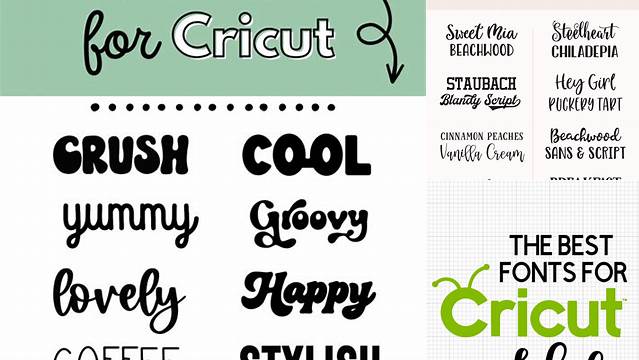
Cricut Fonts: The Ultimate Guide For Crafters
Hey crafters! Ever wondered how to make your Cricut projects truly stand out? It all starts with the right Cricut font! Choosing the perfect font can transform a simple design into a stunning masterpiece. In this guide, we're diving deep into everything you need to know about Cricut fonts, from finding them to using them effectively. Let's get started and unleash your creativity!
Understanding Cricut Fonts
Cricut fonts are specifically designed to work seamlessly with your Cricut machine, ensuring clean cuts and beautiful results. Knowing the basics helps you make informed choices and avoid common pitfalls.
What Are Cricut Fonts?
Cricut fonts are digital typefaces that you can use with your Cricut cutting machine to create various projects, such as vinyl decals, paper crafts, and iron-on designs. These fonts come in various styles, from elegant scripts to bold sans-serifs, allowing you to personalize your creations. When selecting a Cricut font, it's essential to consider factors like readability, cut complexity, and the overall aesthetic you want to achieve. For instance, intricate fonts with many fine details might look stunning on screen but can be challenging to cut and weed, especially with smaller designs. Conversely, simpler, bolder fonts are often easier to work with and provide cleaner cuts, making them ideal for beginners or projects that require precision. Understanding the nuances of different Cricut fonts will help you streamline your crafting process and achieve professional-looking results every time.
Types of Fonts Compatible with Cricut
When it comes to Cricut fonts, you've got options! You can use fonts that are already in Cricut Design Space, or you can upload your own. Cricut Design Space offers a wide variety of fonts, including single-layer fonts, multi-layer fonts, and writing fonts. Single-layer fonts are straightforward and easy to cut, making them great for general use. Multi-layer fonts add depth and dimension to your projects, allowing you to create layered designs with different colors and textures. Writing fonts are specially designed for use with Cricut pens, creating beautiful handwritten effects. But don't stop there! You can also upload fonts from other sources, giving you access to thousands more options. Sites like Dafont, FontSpace, and Creative Fabrica offer a vast selection of free and premium fonts that you can use with your Cricut machine. Just make sure the fonts you download are compatible with Cricut Design Space (usually OTF or TTF files) and that you have the necessary licenses for commercial use if you plan to sell your creations.
Using System Fonts vs. Cricut Design Space Fonts
Understanding the difference between system fonts and Cricut Design Space fonts is crucial for optimizing your crafting experience. System fonts are fonts that are installed directly on your computer. These Cricut fonts can be used in any program on your computer, including Cricut Design Space. Cricut Design Space fonts, on the other hand, are fonts that are available within the Cricut Design Space software itself. These fonts are often specifically designed for use with Cricut machines and may offer unique features or design elements. One of the main advantages of using system fonts is that you have a wider selection to choose from. There are thousands of free and premium fonts available online that you can download and install on your computer, giving you virtually limitless options for your projects. Additionally, system fonts can be used offline, which is convenient if you don't always have access to the internet. Cricut Design Space fonts, while more limited in selection, are often optimized for cutting and weeding, making them a good choice for beginners or for projects that require precision. Ultimately, the best choice depends on your specific needs and preferences. Experiment with both types of fonts to see which ones work best for you and your crafting style.
Font Management Tips for Cricut Users
Keeping your Cricut fonts organized can save you time and headaches in the long run. Here are some tips for effective font management: Create a dedicated folder on your computer for storing your downloaded fonts. This will make it easier to find and manage your fonts in the future. Use a font management software to preview and organize your fonts. There are several free and paid font management programs available that can help you keep track of your font collection. Remove any fonts that you no longer use. Having too many fonts installed on your computer can slow down your system and make it harder to find the fonts you need. Be sure to back up your fonts regularly. This will protect you from losing your fonts if your computer crashes or if you accidentally delete them. Consider using a cloud storage service to store your fonts. This will allow you to access your fonts from any device, and it will also provide an extra layer of protection against data loss. By following these font management tips, you can keep your font collection organized and ensure that you always have the fonts you need for your Cricut projects.
Choosing the Right Font for Your Project
Not all fonts are created equal. The perfect font depends on the project you're working on.
Matching Fonts to Different Cricut Projects
Selecting the right Cricut font is crucial for the success of your crafting projects. Different projects call for different fonts, and understanding how to match fonts to your designs can elevate your creations to the next level. For example, if you're working on a wedding invitation, you might want to choose an elegant script font that exudes sophistication and romance. Fonts like Brush Script or Edwardian Script are popular choices for wedding-related projects. On the other hand, if you're creating a birthday banner for a child's party, you might opt for a playful and whimsical font like Comic Sans or Bubblegum Sans. These fonts are fun and cheerful, making them perfect for kids' projects. For more serious or professional projects, such as business cards or logos, you'll want to choose a clean and modern font like Helvetica or Arial. These fonts are easy to read and convey a sense of professionalism. When selecting a Cricut font, also consider the size of your design. Smaller designs require fonts that are easy to cut and weed, while larger designs can accommodate more intricate fonts. By carefully matching your fonts to your projects, you can create designs that are both visually appealing and functional.
Font Pairing Techniques for Cricut Designs
Font pairing is an art that can significantly enhance the visual appeal of your Cricut designs. The goal is to combine two or more Cricut fonts that complement each other, creating a harmonious and balanced look. A common technique is to pair a serif font with a sans-serif font. For example, you could pair a classic serif font like Times New Roman with a clean sans-serif font like Open Sans. The contrast between the two fonts will add visual interest to your design. Another technique is to pair a bold font with a lighter font. This can help to create a sense of hierarchy, with the bolder font used for headings or titles and the lighter font used for body text. You can also experiment with different font styles, such as pairing a script font with a block font. However, it's important to use script fonts sparingly, as they can be difficult to read in large blocks of text. When pairing Cricut fonts, it's also important to consider the overall tone of your design. If you're creating a formal design, you'll want to choose fonts that are elegant and sophisticated. If you're creating a more casual design, you can choose fonts that are playful and fun. Don't be afraid to experiment with different font combinations until you find a pairing that you love.
Choosing the right Cricut font is essential for any successful crafting project. By understanding the different types of fonts, how to install and use them, and how to troubleshoot common issues, you can unleash your creativity and create stunning designs. So go ahead, experiment with different fonts, and let your imagination run wild! Happy crafting, guys!